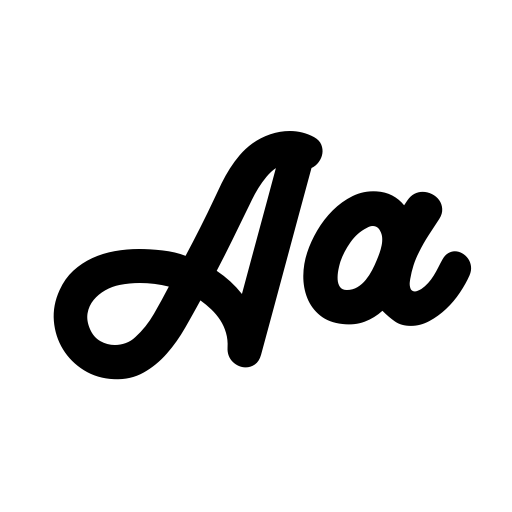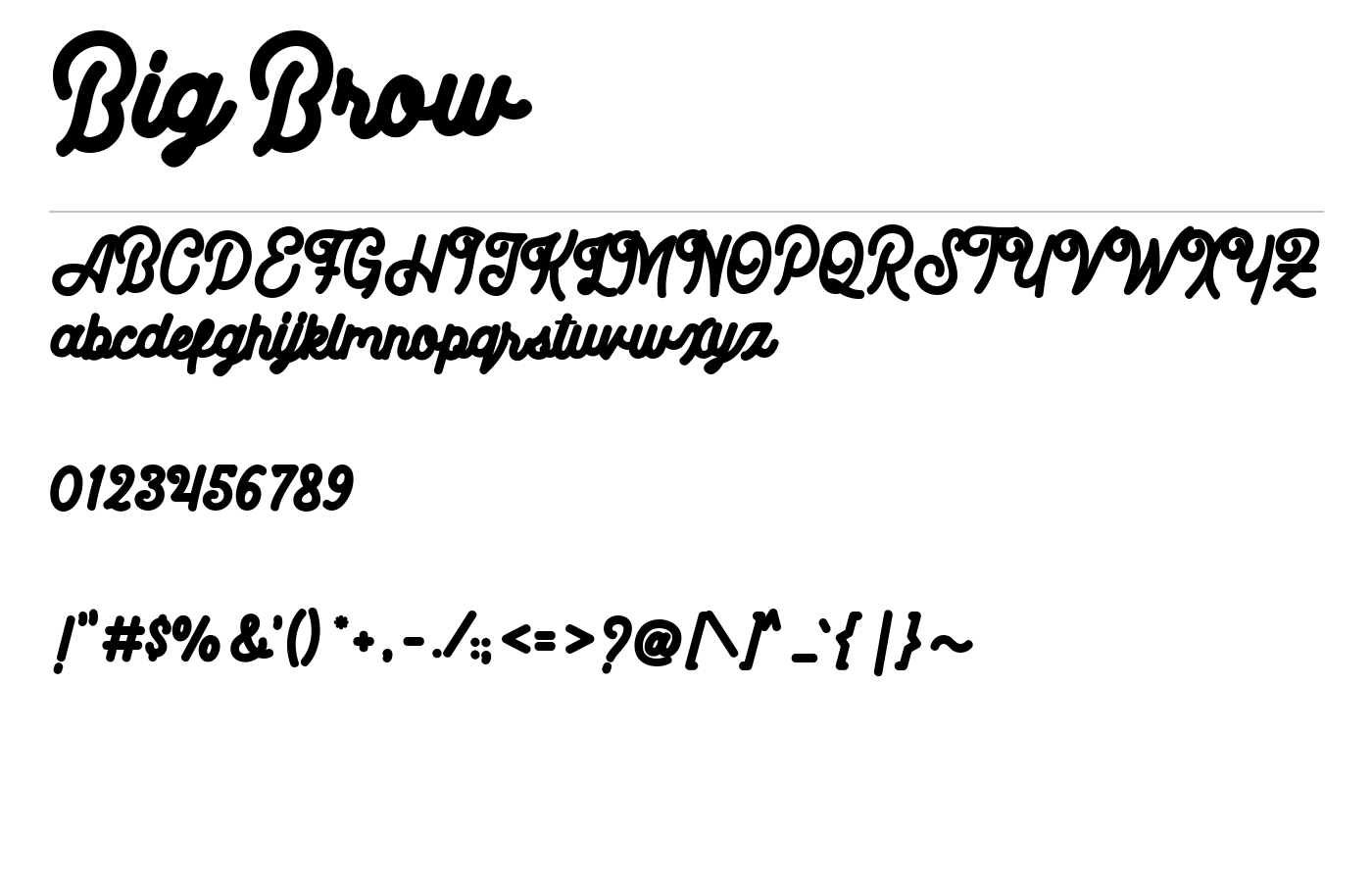
Big Brow is a bold script font with a lively, retro vibe, featuring thick, rounded strokes and smooth, flowing connections between letters. Its casual yet strong personality makes it ideal for eye-catching headlines, logos, and packaging that want to communicate warmth, creativity, and charm. This font works especially well for brands aiming for a vintage or handcrafted feel while maintaining clear readability.
Big Brow Font
About Big Brow Font